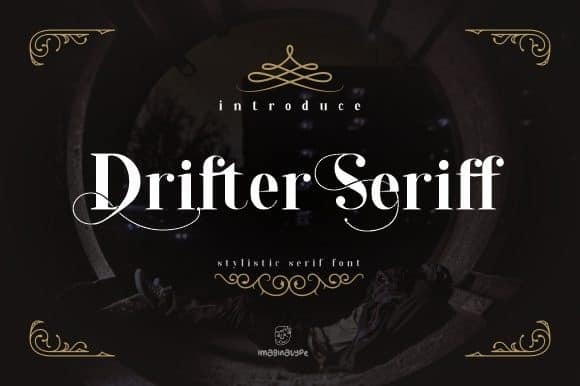
Drifter Seriff Font
Drifter Seriff is an elegant and unique serif font. With its neat and beautiful arrangement of letters, this typeface will look outstanding in both formal and non-formal designs.